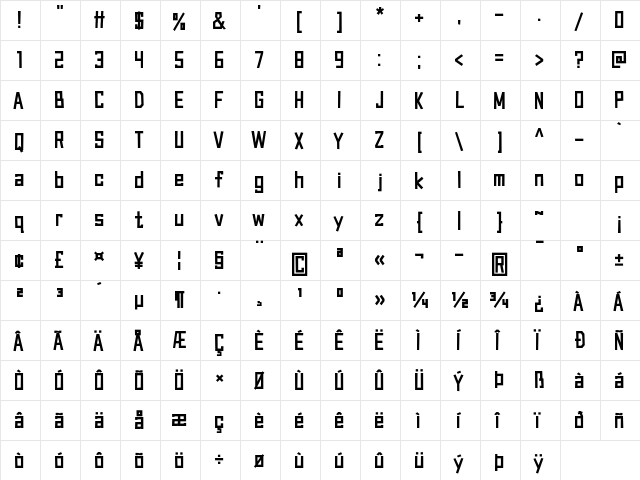
Canvas Bags Regular
Design Context for Canvas Bags Typeface
Canvas Bags offers clean, dependable letterforms without strong stylistic allegiance, making it a practical choice for designers who need flexibility.
Pro Tip: Use Canvas Bags in both headline and body roles to test its range before committing to a single application.